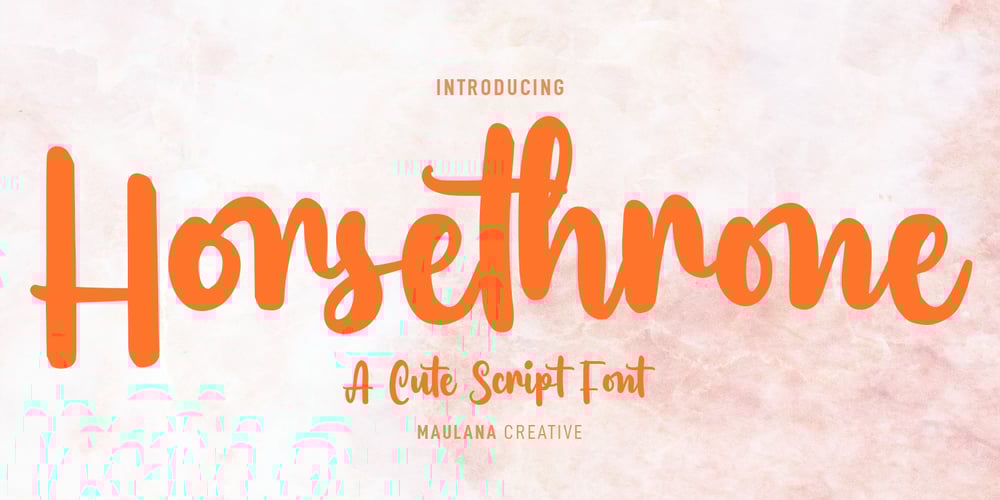
Horsethrone Font Family was designed by Gilang Maulana and published by Maulana Creative. Horsethrone contains 1 styles and family package options. Horsethrone is a fancy handwritten script font. With bold contrast stroke, fun character with a bit of ligatures and alternates. To give you an extra creative work. Horsethrone font support multilingual more than 100+ language. This font is good for logo design, Social media, Movie Titles, Books Titles, a short text even a long text letter and good for your secondary text font with sans or serif. Make a stunning work with Horsethrone font. Cheers,Maulana Creative